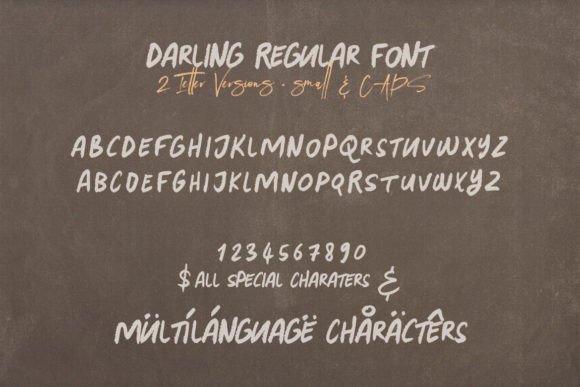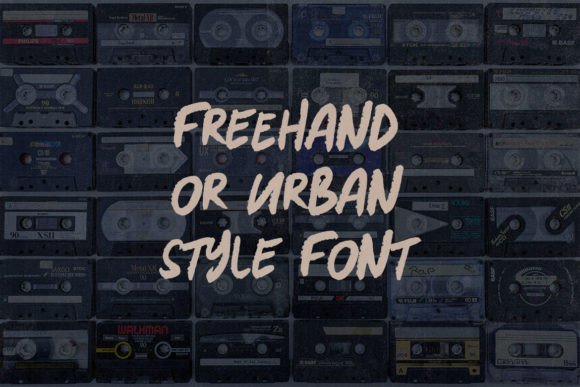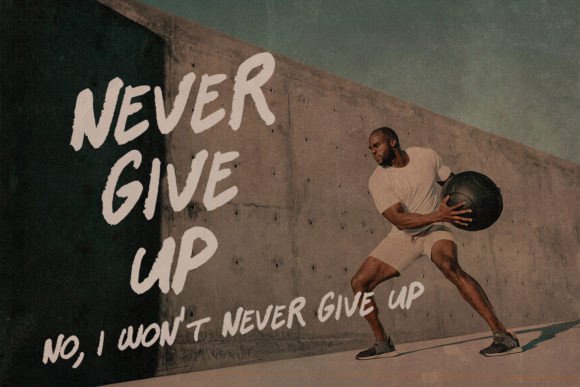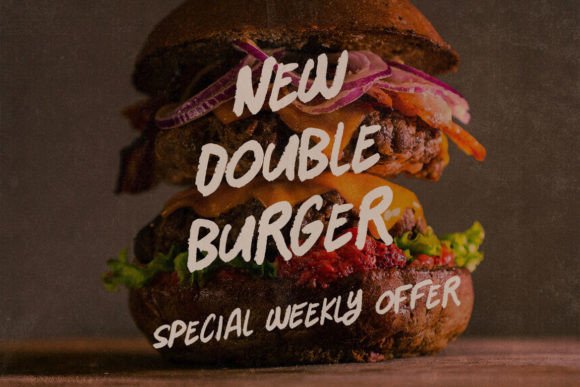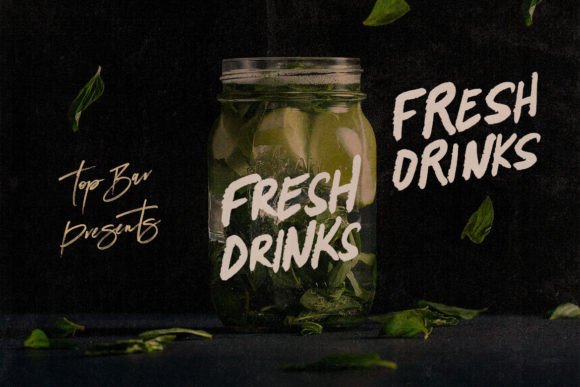
Introducing Darling Brush Font: The Ultimate Marker Display Font for Creative Projects
Are you tired of using the same old fonts for your art projects? Look no further! Darling Brush Font is here to revolutionize your designs with its funky and cool marker display style. This fresh and unique font is perfect for crafters, designers, and artists who want to add a personal touch to their work.
What is Darling Brush Font?
Darling Brush Font is a marker display font that mimics the look of hand-drawn text with a marker or brush. Its irregular lines and subtle imperfections give it a charming, handmade feel that’s perfect for a variety of creative projects. Whether you’re working on a DIY craft, a graphic design project, or a digital illustration, Darling Brush Font is sure to add a touch of personality and whimsy.
Key Features of Darling Brush Font
- Funky and Cool Design: Darling Brush Font boasts a unique and trendy design that’s sure to make your projects stand out.
- Marker Display Style: The font’s marker display style gives it a fresh and modern look that’s perfect for a variety of applications.
- Handmade Feel: The font’s irregular lines and subtle imperfections give it a charming, handmade feel that’s perfect for crafty projects.
Darling Brush Font is versatile and can be used for a wide range of creative projects, including:
- DIY Crafts: Add a personal touch to your DIY crafts, such as scrapbooking, card making, and journaling.
- Graphic Design: Use Darling Brush Font to add a unique touch to your graphic design projects, such as posters, flyers, and brochures.
- Digital Illustration: Add a handmade feel to your digital illustrations and make them stand out.
- Social Media Graphics: Use Darling Brush Font to create eye-catching social media graphics that will grab attention.
Tips for Using Darling Brush Font
Here are some tips for getting the most out of Darling Brush Font:
- Experiment with Colors: Try pairing Darling Brush Font with different colors to create unique and eye-catching combinations.
- Play with Size: Experiment with different font sizes to create visual interest and hierarchy.
- Combine with Other Fonts: Try pairing Darling Brush Font with other fonts to create interesting and dynamic text combinations.
Darling Brush Font is a funky and cool marker display font that’s perfect for adding a fresh and unique touch to your art projects. With its handmade feel and versatile design, it’s ideal for a wide range of creative applications. Whether you’re a designer, crafter, or artist, Darling Brush Font is sure to become a favorite in your font collection.